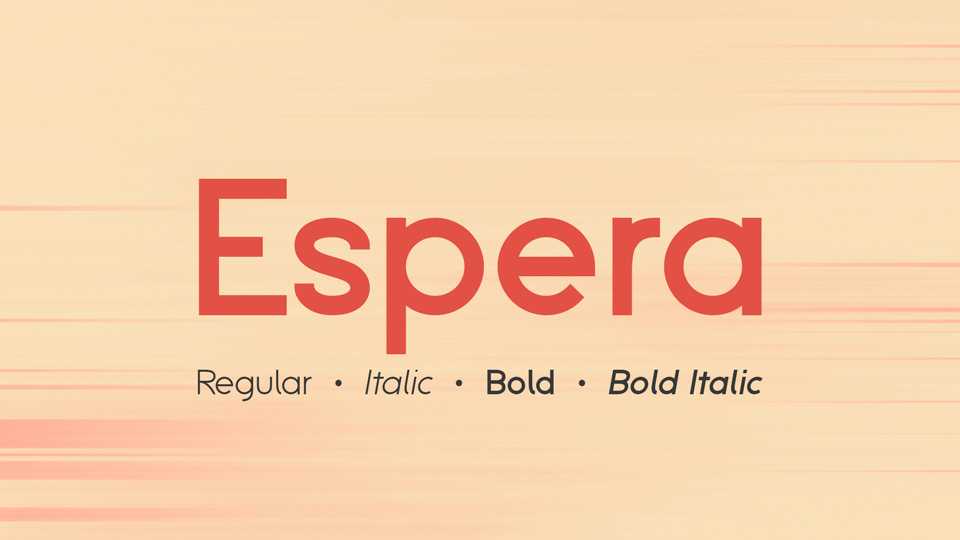
Download Espera typeface, a symmetric sans serif font family in two weights and matched Italics.. Its simple yet original design makes Espera suitable for a wide variety of projects.
Designer: Pandia Type